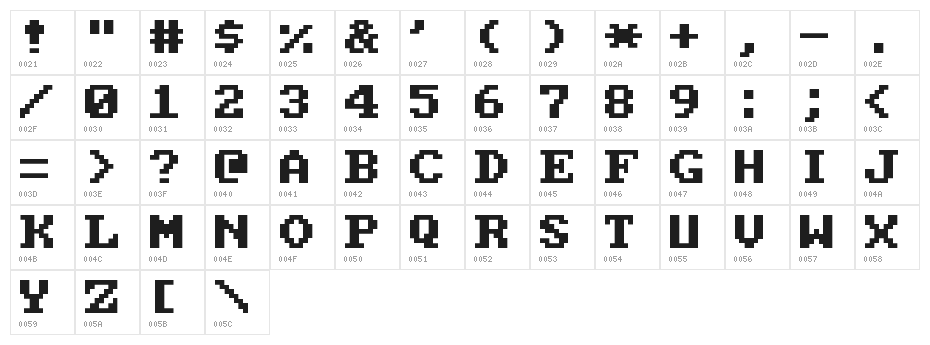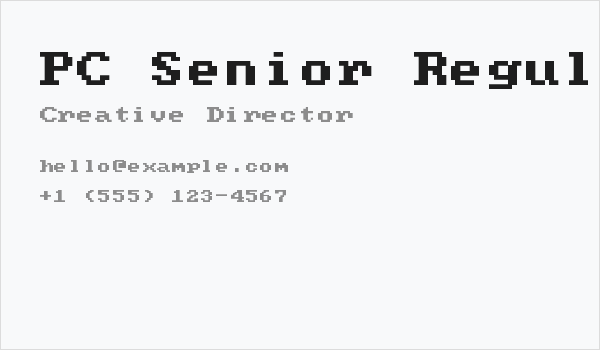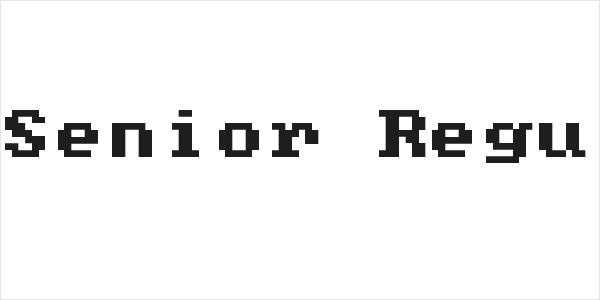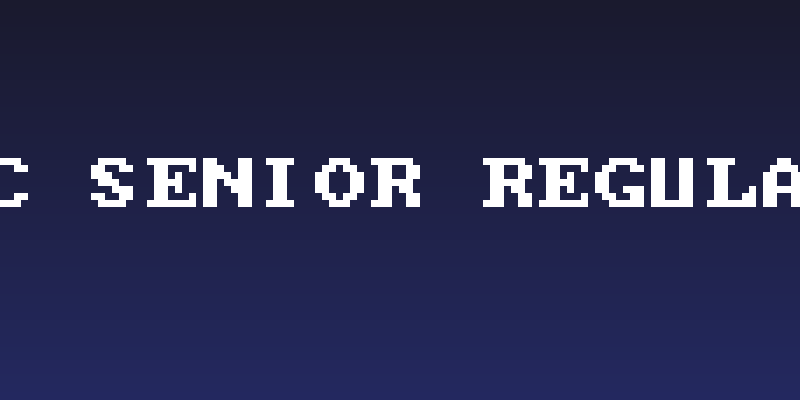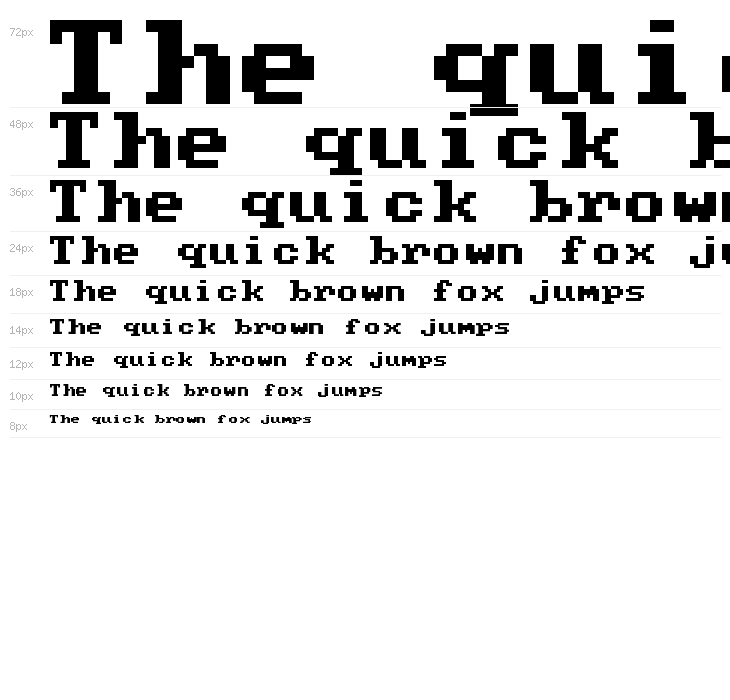
PC Senior Regular Font
| Категория | Pixel |
| Межсимвольный интервал | Normal |
| Общий стиль | Vintage |
| Область применения | Logos, Headlines, Posters, Digital Art |
| Рекомендуемые проекты | Ideal for retro-themed designs, video game graphics, digital art, and any project seeking a nostalgic, tech-inspired look. |
| фиксируется шаг | Yes |